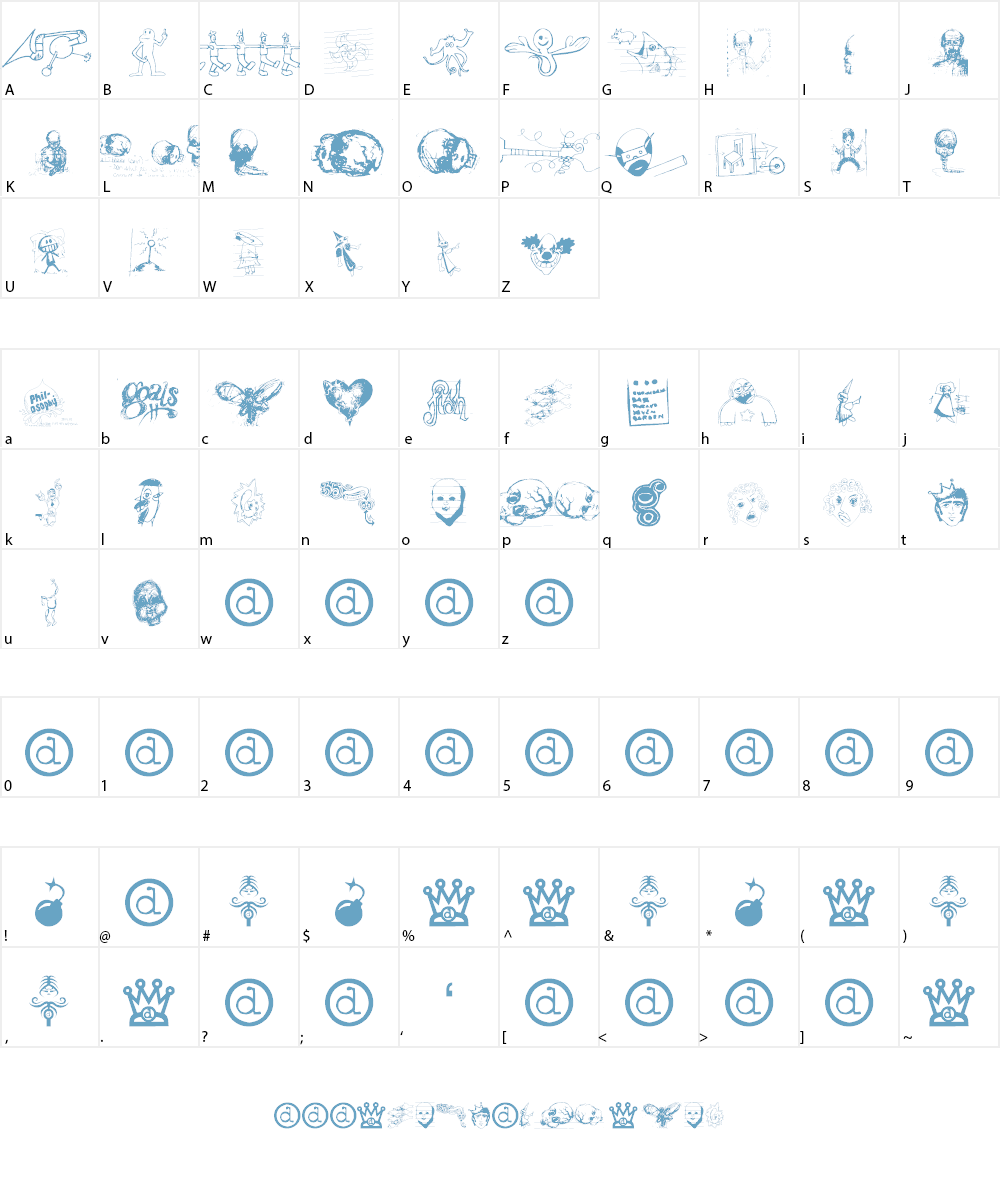
DisturbedBats is a collection of sketches that I've done in my notebooks since the beginning of last semester (fall 1998). I thought you guys might enjoy them. They seem pretty random, but most of them actually aren't. Some are sketches of people in my classes. Some are sketches of the professors.